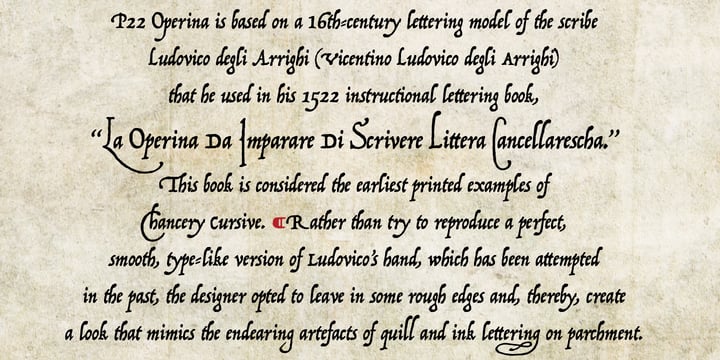
P22 Operina
P22 Operina™ by IHOF
P22 Operina Font Family was designed by Ludovico degli Arrighi, James Grieshaber and published by IHOF. P22 Operina contains 4 styles and family package options. More about this family
About P22 Operina Font Family
Operina is based on a 16th-century lettering model of the scribe Ludovico degli Arrighi (Vicentino Ludovico degli Arrighi) used in his 1522 instructional lettering book, "La Operina da Imparare di scrivere littera Cancellarescha." This book contains what is considered to be the earliest printed examples of Chancery Cursive. Rather than try to reproduce a perfect, smooth, type-like version of Ludovico's hand, which has been attempted in the past, the designer opted to leave in some rough edges and, thereby, create a look that mimics the endearing artifacts of quill and ink lettering on parchment. When reviving an old style, a designer is faced with many challenging decisions, such as whether to aim for ultimate authenticity or to modify the alphabet for modern use. The decision here was to create a font that resembles the 16th-century Italian hand-lettering master's, but is also useful to the contemporary user. Because the letters U u W w J j and our modern Arabic numerals were not in use during the advent of these original letterforms, these had to be interpolated. To make a complete and useable font set, we also had to fashion many of the extra and diacritical characters to match the look of the alphabet. There are three fonts in this set: Romano(simple), Corsivo(more complex), and Fiore(swash). Romano is the most subdued, it contains Roman looking caps and has lining figures. Corsivo is more elaborate, it has more decorative capital letters and an alternate version of the lowercase with longer ascenders and descenders, and old style figures. Fiore, the swash font, is the most elaborate with the longest ascenders and descenders. You may not wish to use the Fiore version on its own, especially as all caps; it is meant to enhance the other two alphabets because it contains the most elaborate capitals and has many extra ligatures. P22 Operina Pro is an OpenType version that contains over 1200 characters. It features Small Caps, Old Style Figures, full European, Cyrillic and Greek character sets and a new OpenType first with automatic Roman Numerals. Just type any number and with the feature, it will convert to Roman Numerals!
About IHOF
International House of Font (IHOF) is a type boutique showcasing distinctive type designs and designers from around the world. While still technically part of P22 Type Foundry, IHOF offers a wider range of styles from single fonts to a mega-font families with a focus on historically inspired designs. Designs include historical revivals but also original designs from a range of contemporary type designers.